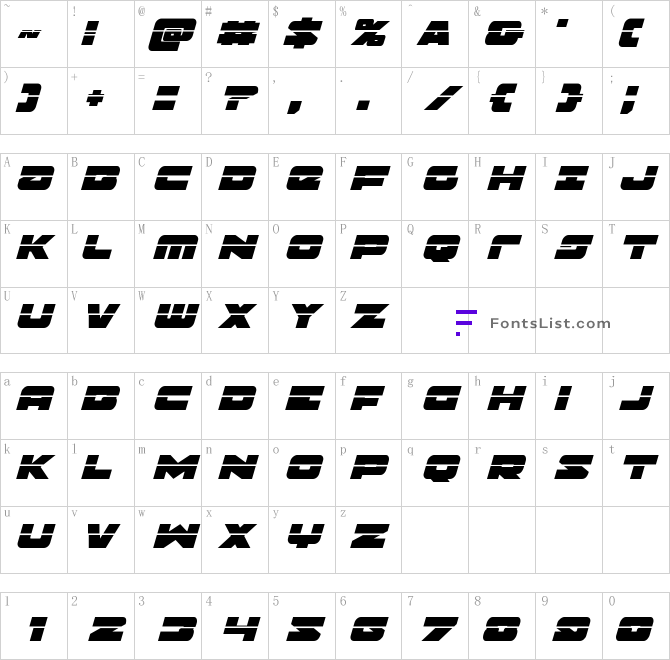
- Font Name:Banjin Laser Italic
Banjin-Laser-Italic.ttf is a very beautiful artistic font, Banjin-Laser-Italic.ttf is widely used in the design and printing of various books and pictures,Banjin-Laser-Italic.ttf has a strong visual impact,Banjin-Laser-Italic.ttf is a commonly used font in newspapers, magazines and books, and is used in posters, e-commerce Poster design, store design, logo design, font design and other fields.Banjin-Laser-Italic.